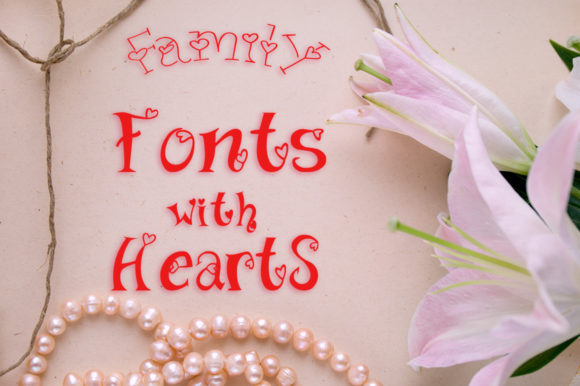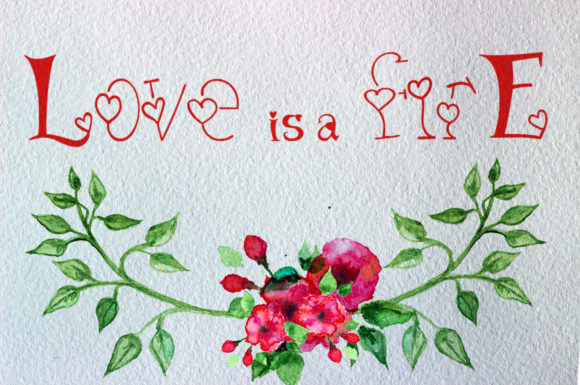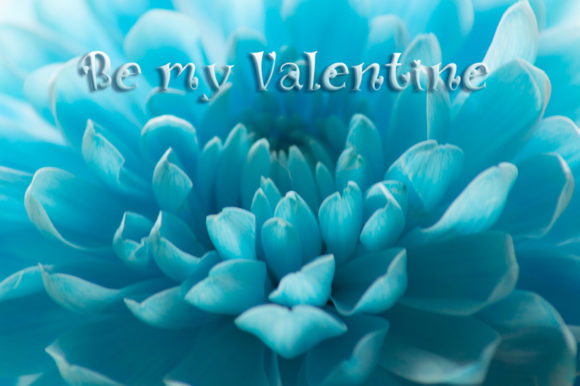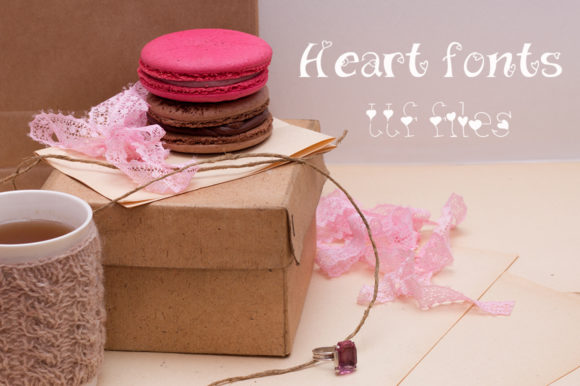
Introducing Family Heart Font: The Ultimate Display Font for Creative Minds
Are you tired of using the same old fonts for your creative projects? Look no further! Family Heart Font is here to revolutionize the way you approach typography. This incredibly cool, modern, and quirky display font is expertly designed to make your creation look out of this world. With its unique charm and versatility, Family Heart Font has the potential to take your creative ideas far further.
The Design Behind Family Heart Font
Family Heart Font is the brainchild of talented designers who aimed to create a font that stands out from the crowd. The font features a distinctive, hand-drawn style with a perfect blend of modernity and quirkiness. Each letter is carefully crafted to ensure that the font is not only visually appealing but also highly legible. The result is a font that is both fun and sophisticated, making it perfect for a wide range of creative projects.
Key Features of Family Heart Font
- Unique and Quirky Design: Family Heart Font boasts a one-of-a-kind design that will set your creations apart from the rest.
- Modern and Fresh Look: The font’s modern style ensures that your projects look contemporary and on-trend.
- Highly Legible: Despite its quirky design, Family Heart Font is highly legible, making it perfect for use in a variety of contexts.
- Versatile: The font is suitable for use in a wide range of creative projects, from branding and advertising to packaging and more.
Uses of Family Heart Font
Family Heart Font is an incredibly versatile font that can be used in a variety of creative projects. Here are some ideas to get you started:
- Branding and Logo Design: Use Family Heart Font to create a unique and memorable brand identity.
- Advertising and Marketing: The font’s quirky design makes it perfect for use in advertising and marketing materials.
- Packaging Design: Add a touch of personality to your packaging with Family Heart Font.
- Social Media Graphics: Use the font to create eye-catching social media graphics that will help your content stand out.
Tips for Using Family Heart Font
To get the most out of Family Heart Font, here are a few tips to keep in mind:
- Use it Sparingly: While Family Heart Font is incredibly versatile, it’s best to use it sparingly to avoid overwhelming your design.
- Experiment with Colors: The font looks great in a variety of colors, so don’t be afraid to experiment and find the perfect hue for your design.
- Pair it with Other Fonts: Family Heart Font pairs well with a variety of other fonts, so feel free to get creative and experiment with different combinations.
Family Heart Font is an incredibly cool, modern, and quirky display font that has the potential to take your creative ideas far further. With its unique design, versatility, and high legibility, this font is perfect for designers and crafters looking to add a touch of personality to their projects. Whether you’re working on a branding project, advertising campaign, or packaging design, Family Heart Font is sure to make your creation look out of this world.